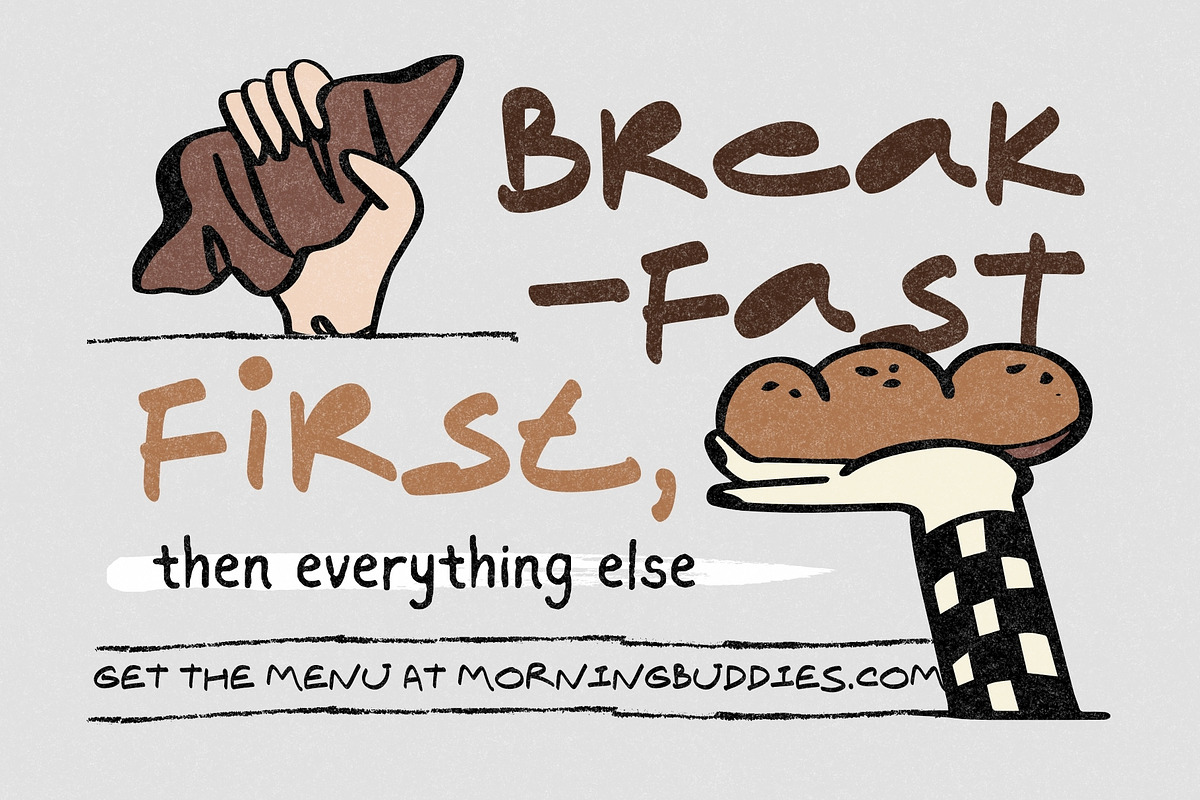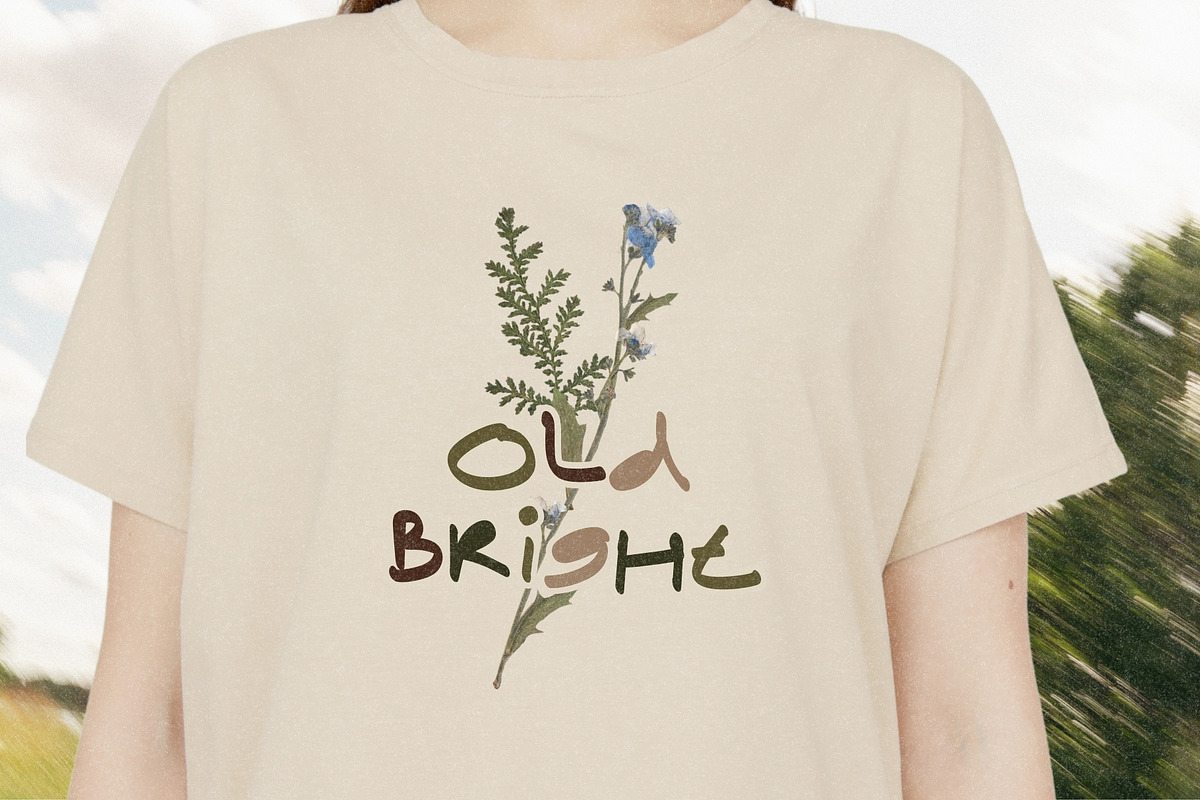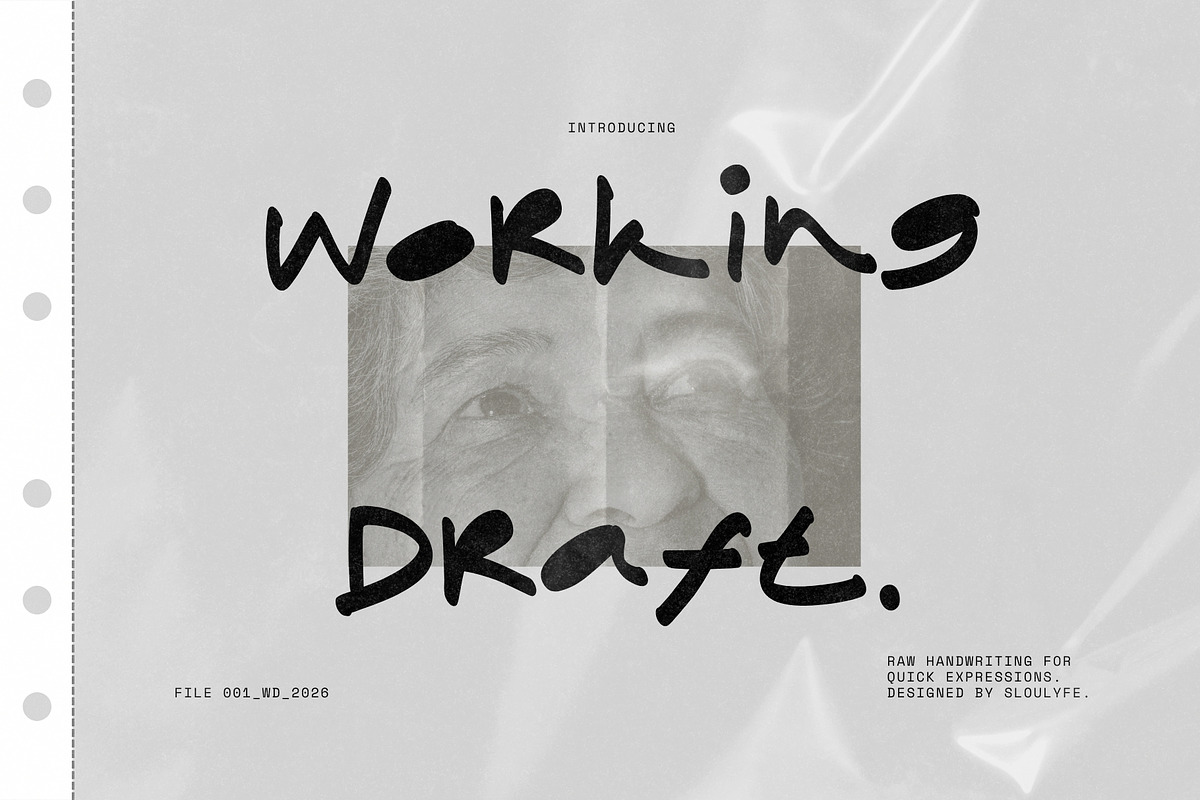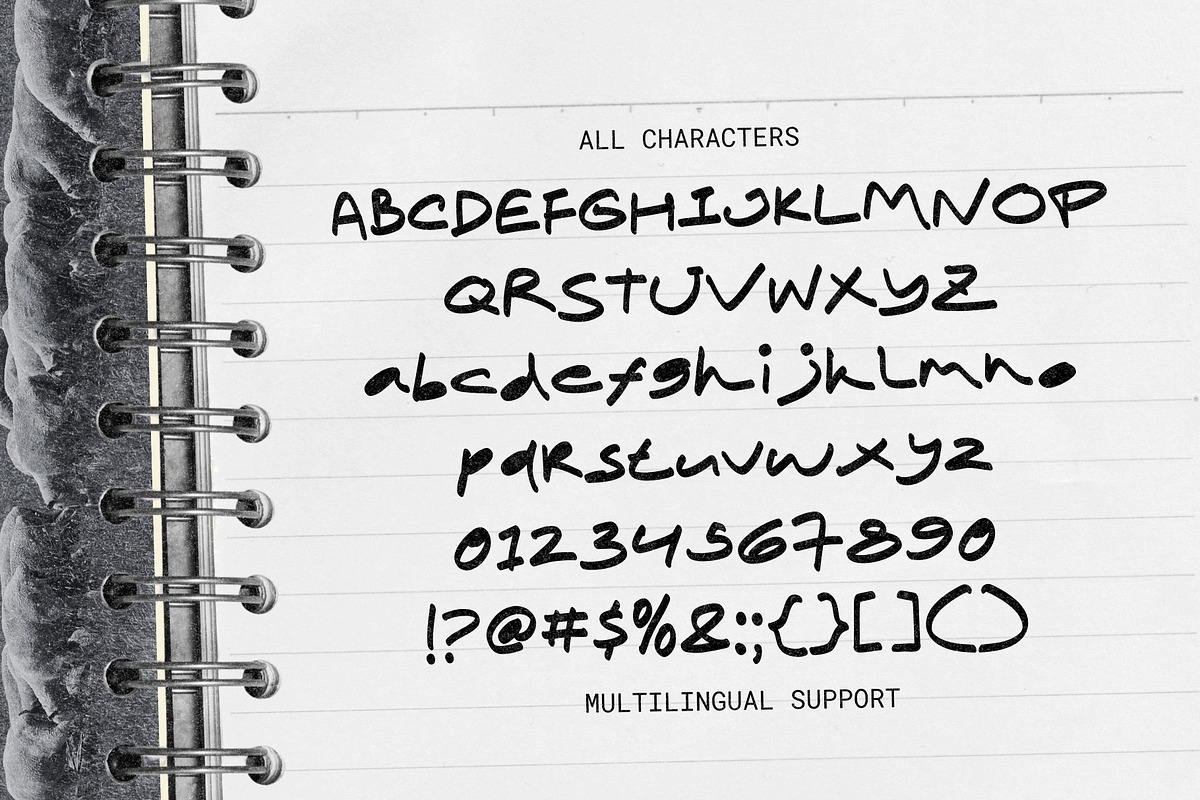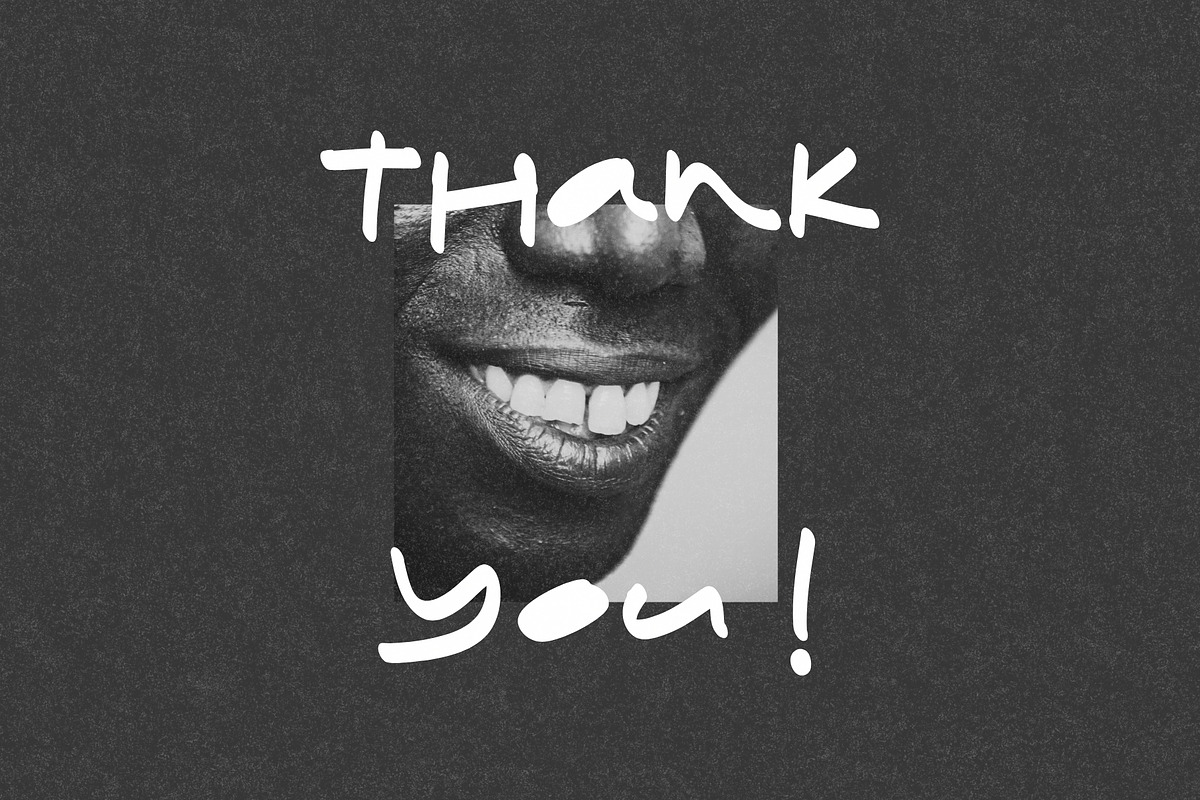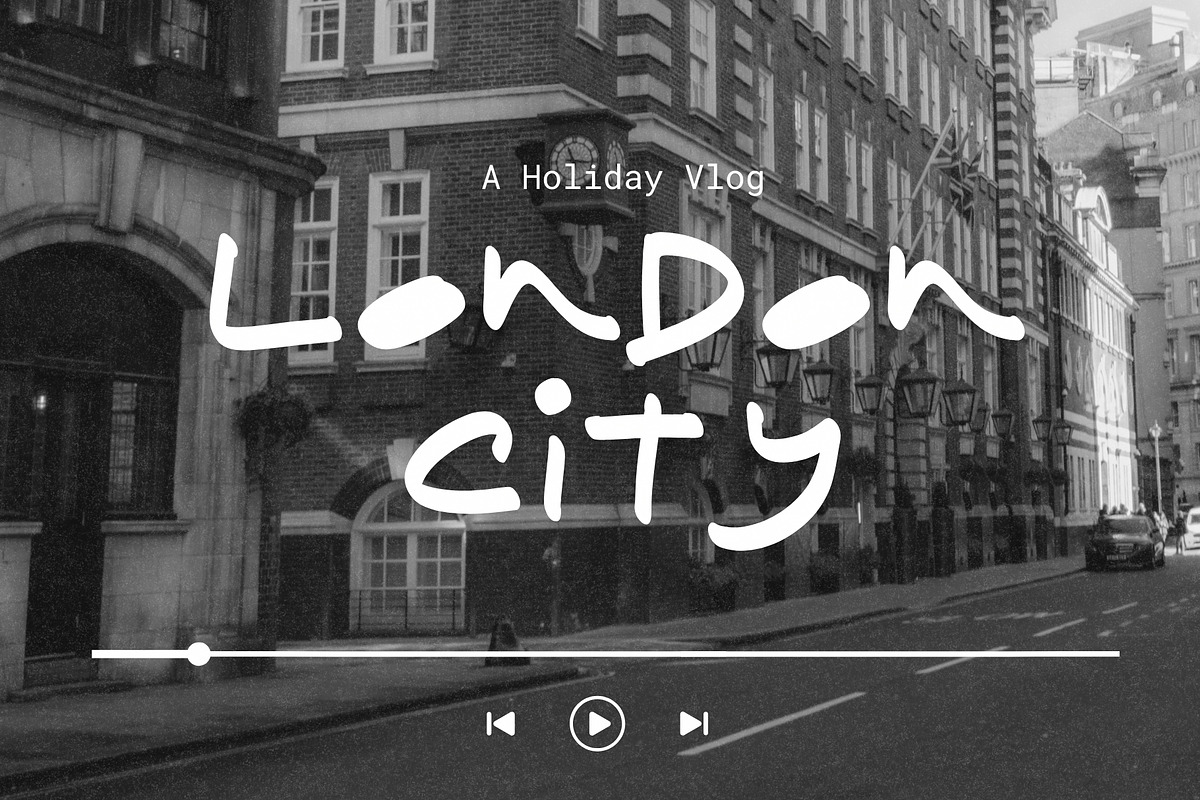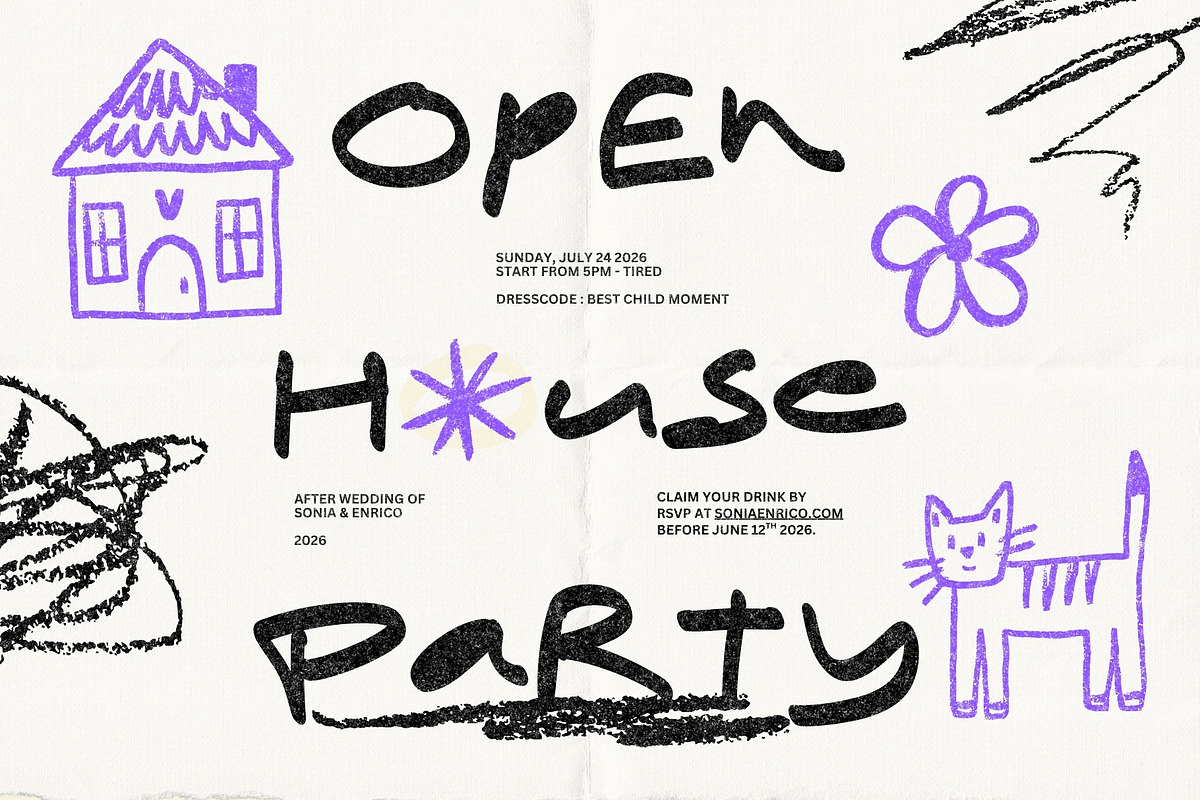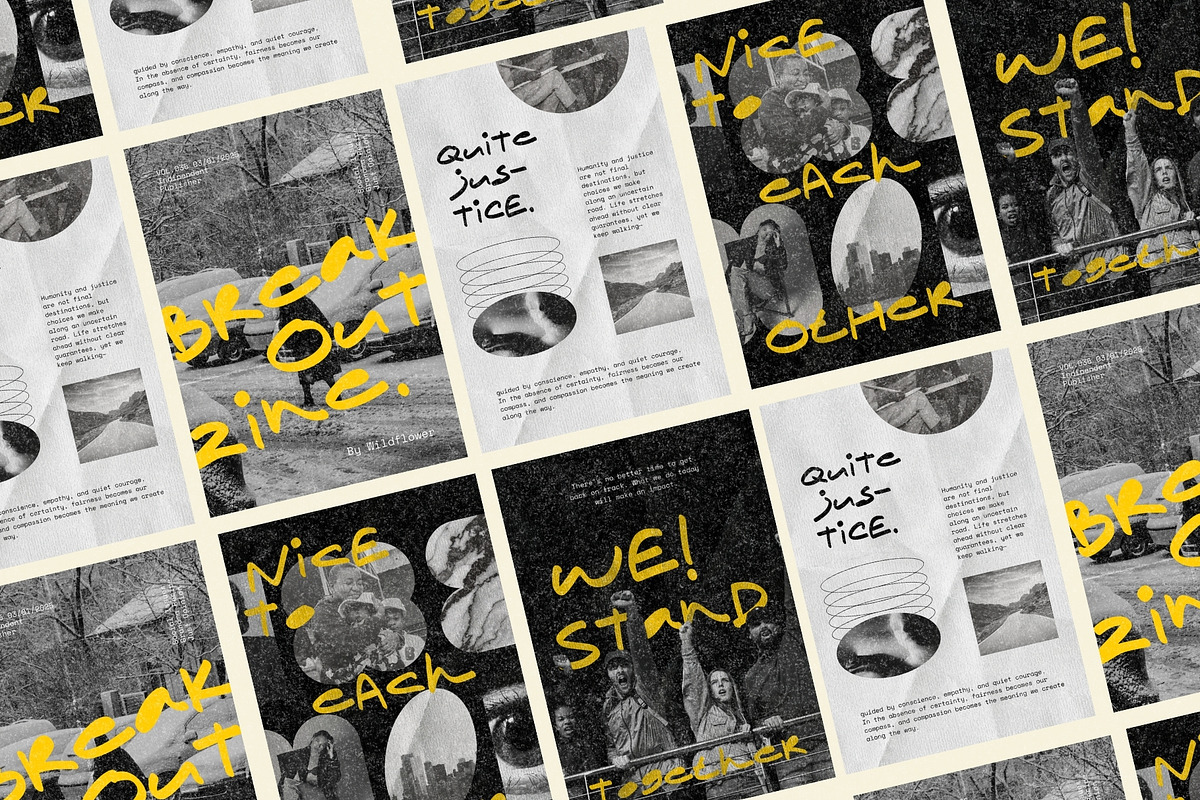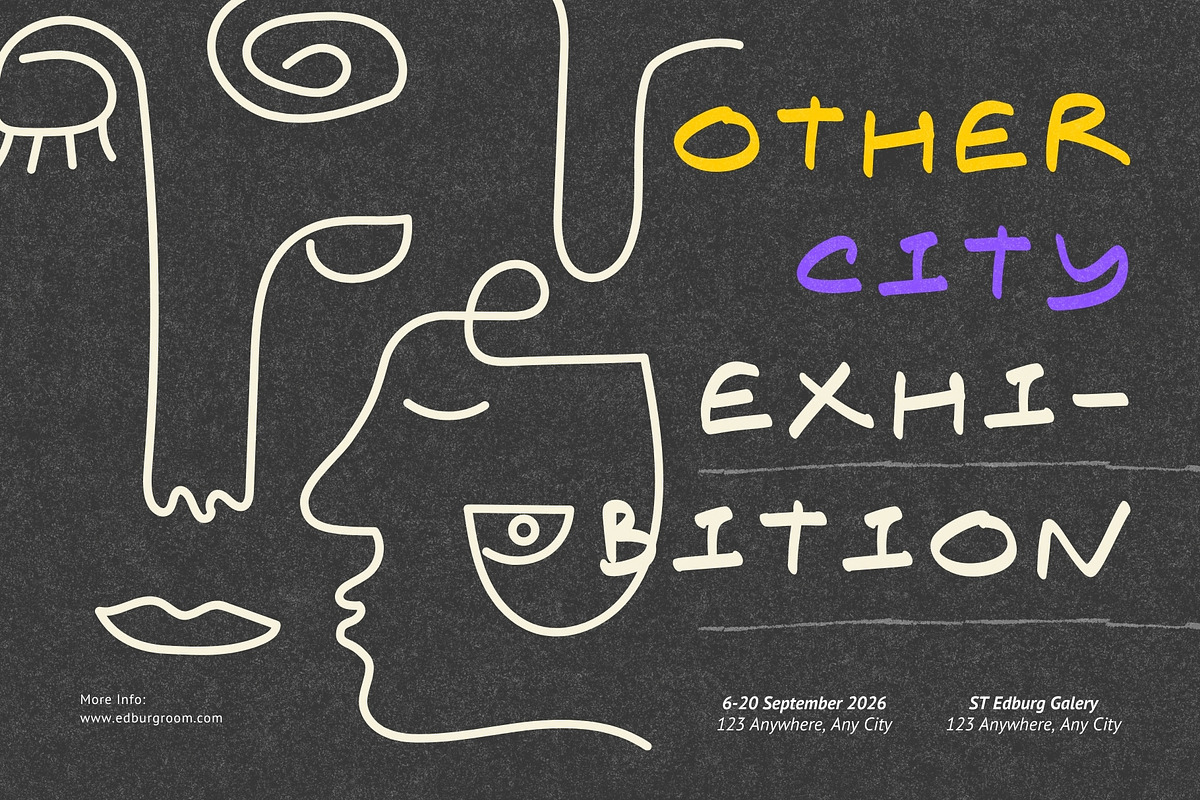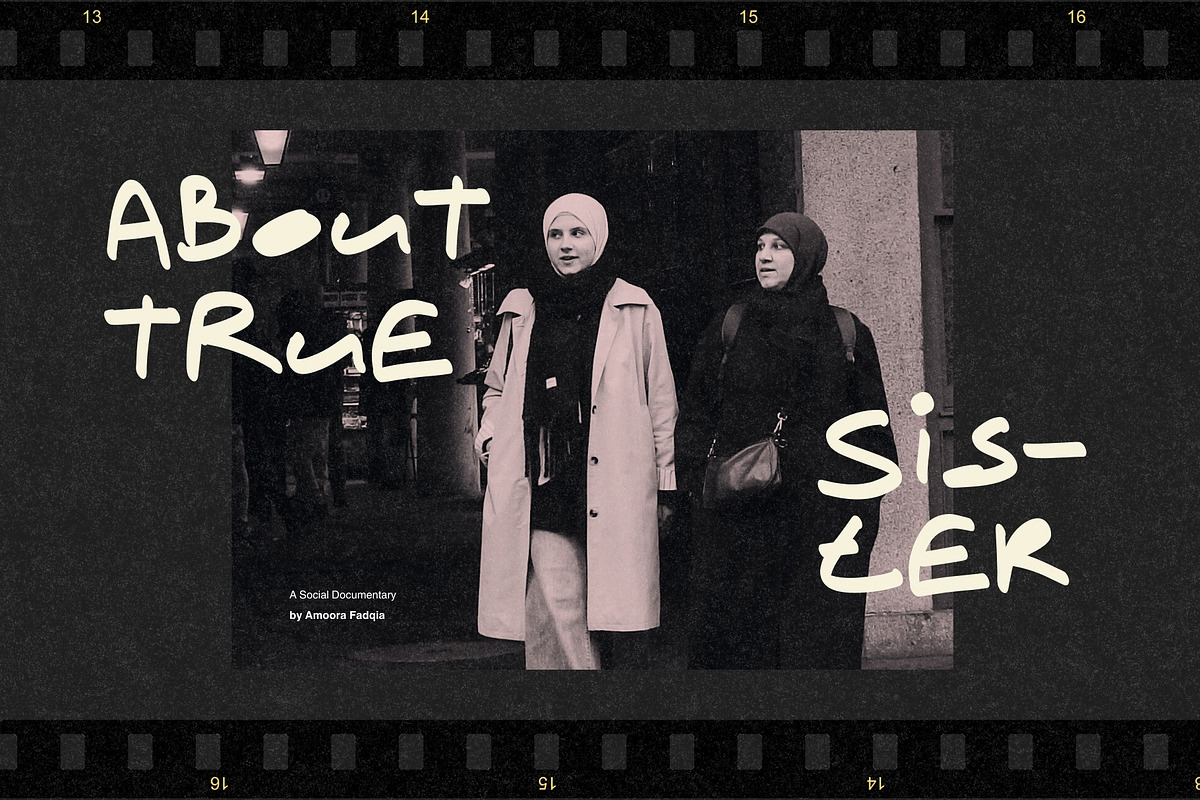
Working Draft - Raw Handwritten
Working Draft feels like a marker grabbed in a rush and magic just happened. The strokes are thick, slightly uneven, and textured like real ink on paper—raw, quick, and honest. Every letter looks handwritten in the moment, giving your words that spontaneous, notebook-scribble energy. It’s bold without being polished, expressive without being perfect.